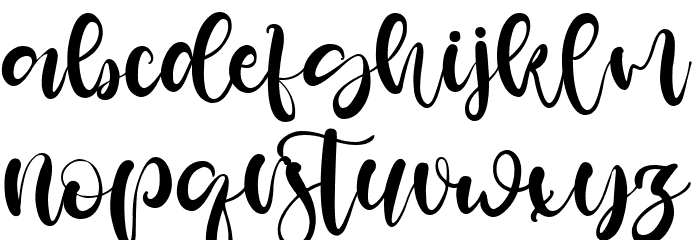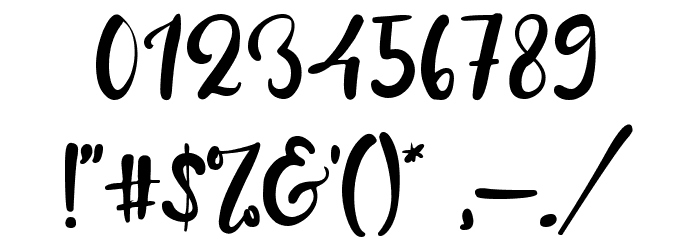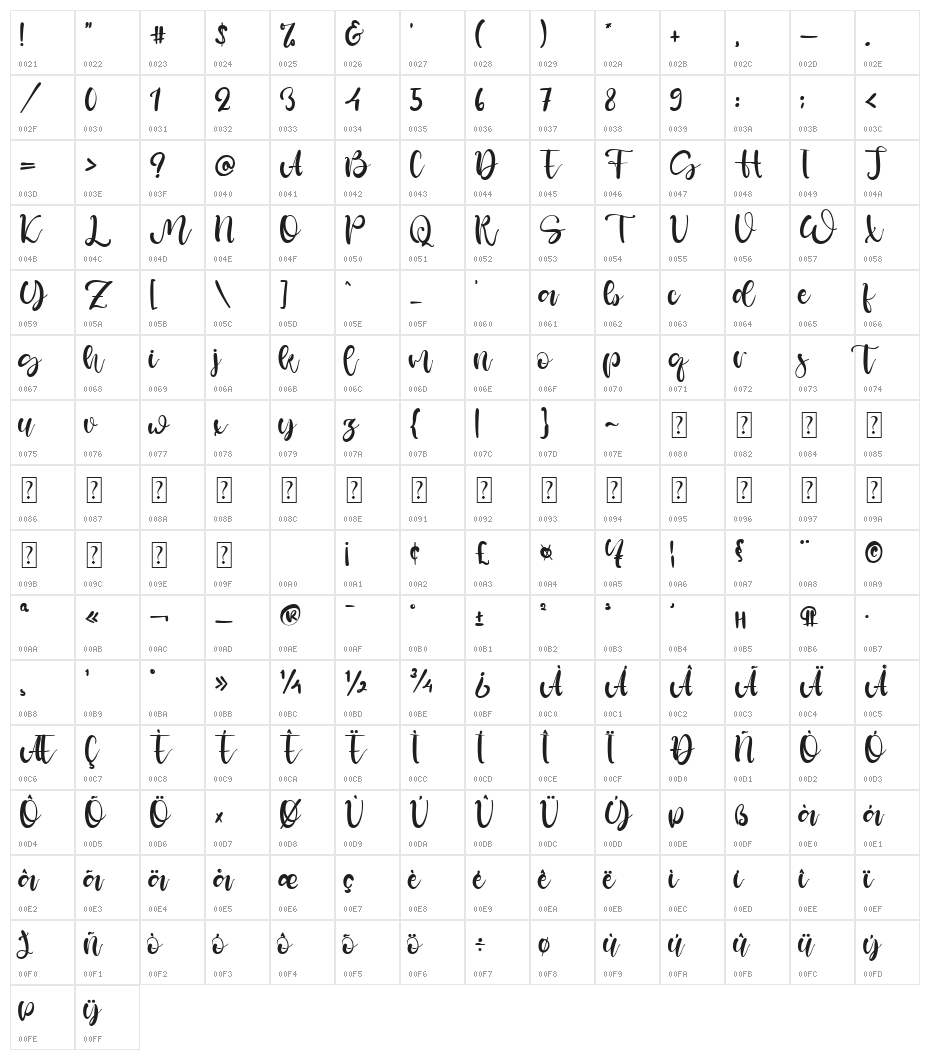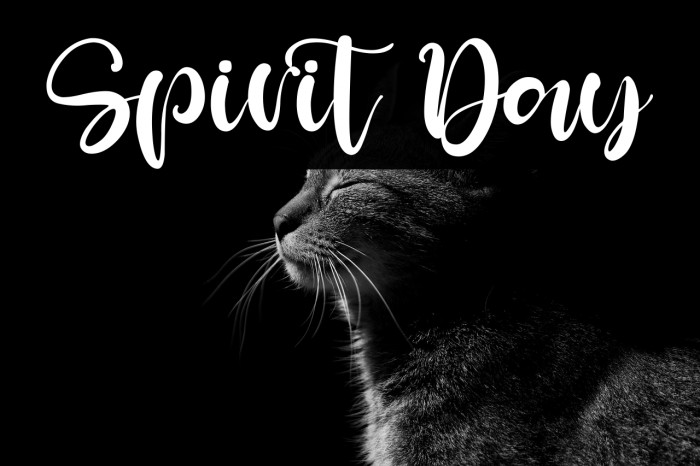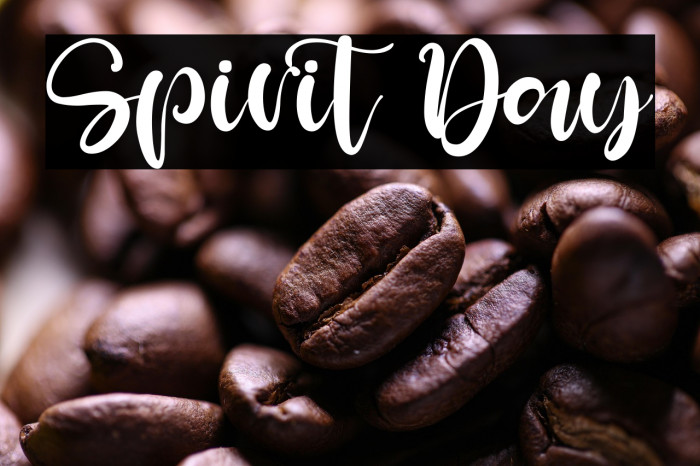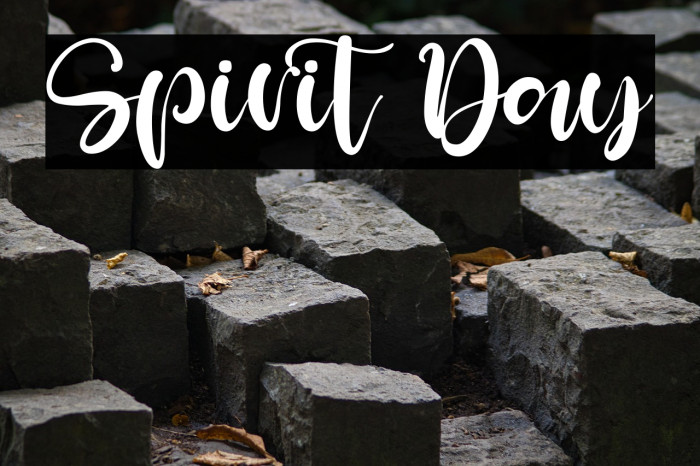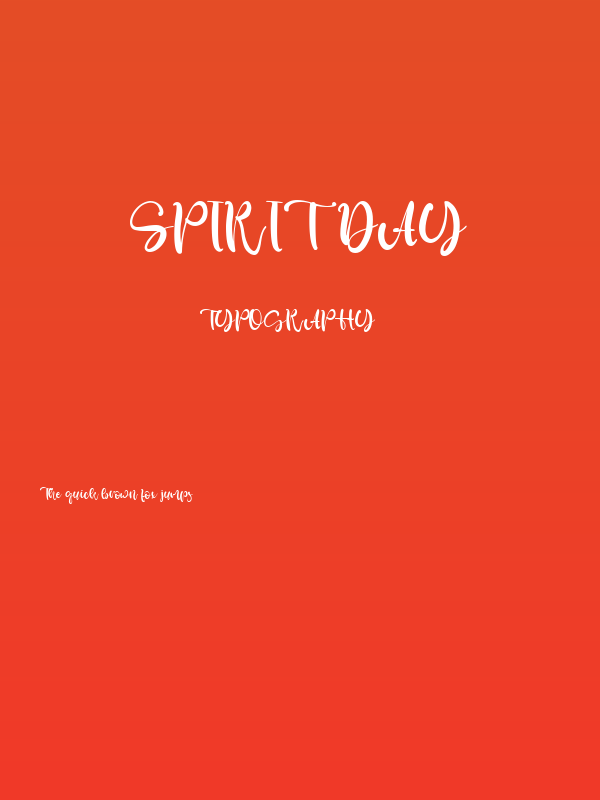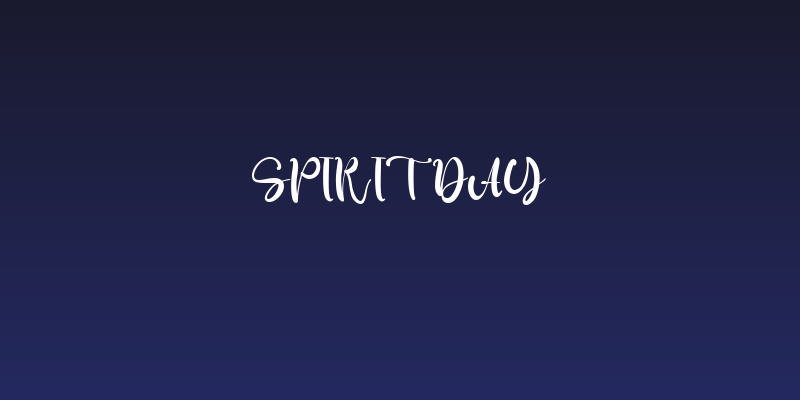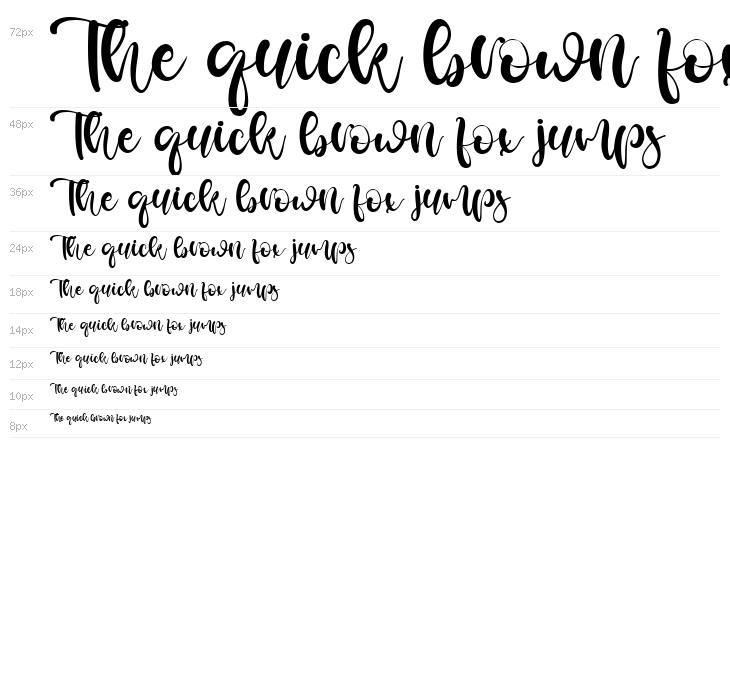
Spirit Day Font
This font features a lively and expressive script style with a handwritten appearance. The characters are fluid and connected, showcasing a playful and artistic flair. The uppercase letters are bold and dynamic, while the lowercase letters maintain a consistent flow with elegant loops and curves. Numbers and special characters are crafted with the same attention to detail, ensuring a cohesive look across all elements. The overall design is both modern and whimsical, making it suitable for creative projects that require a personal touch.
A lively, handwritten script font with bold, expressive characters.
- Font: Spirit Day
- Proposed Projects: Ideal for wedding invitations, greeting cards, branding, and social media graphics.
- Overall Style: Modern, Decorative
- Use Case: Logos, Headlines, Invitations